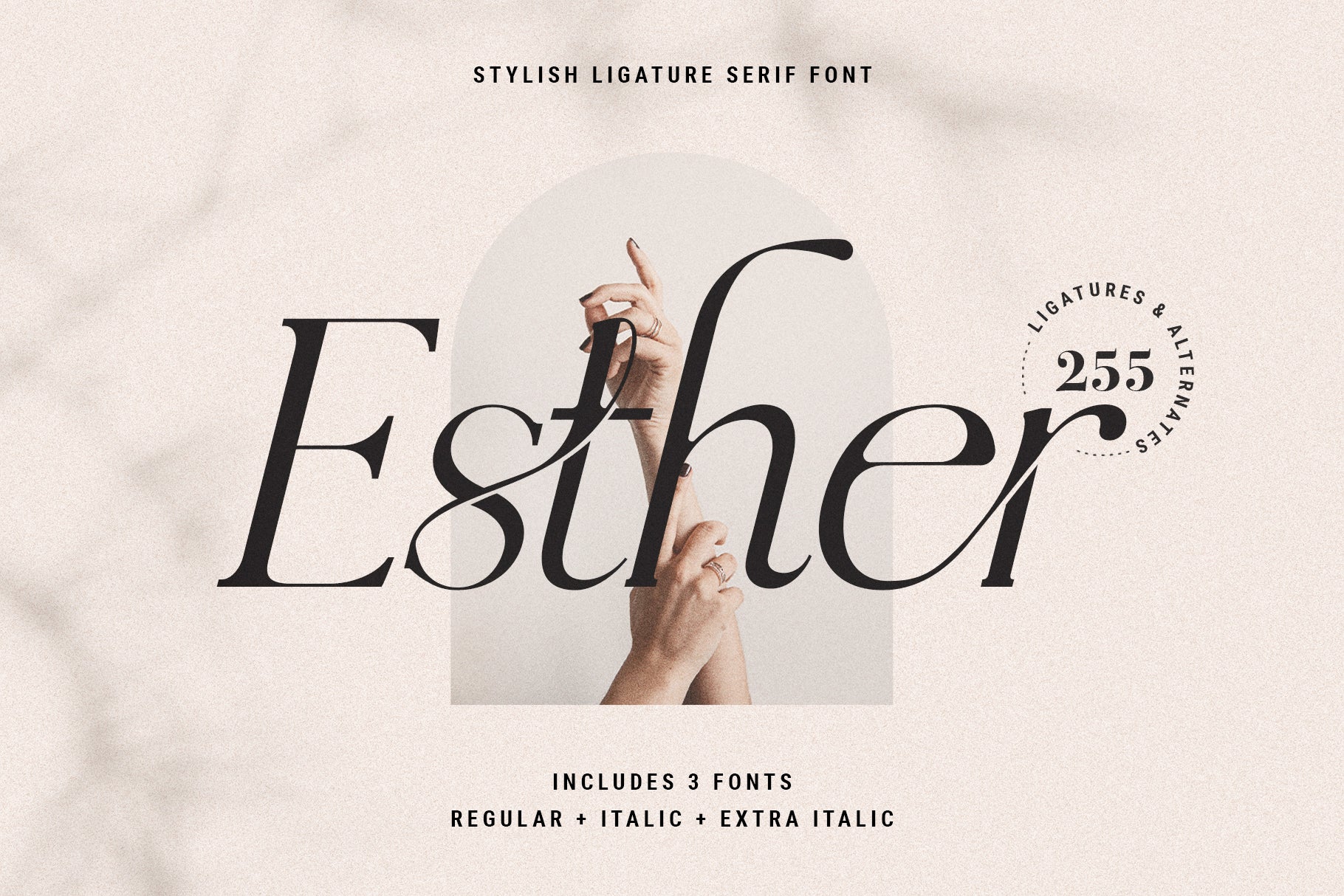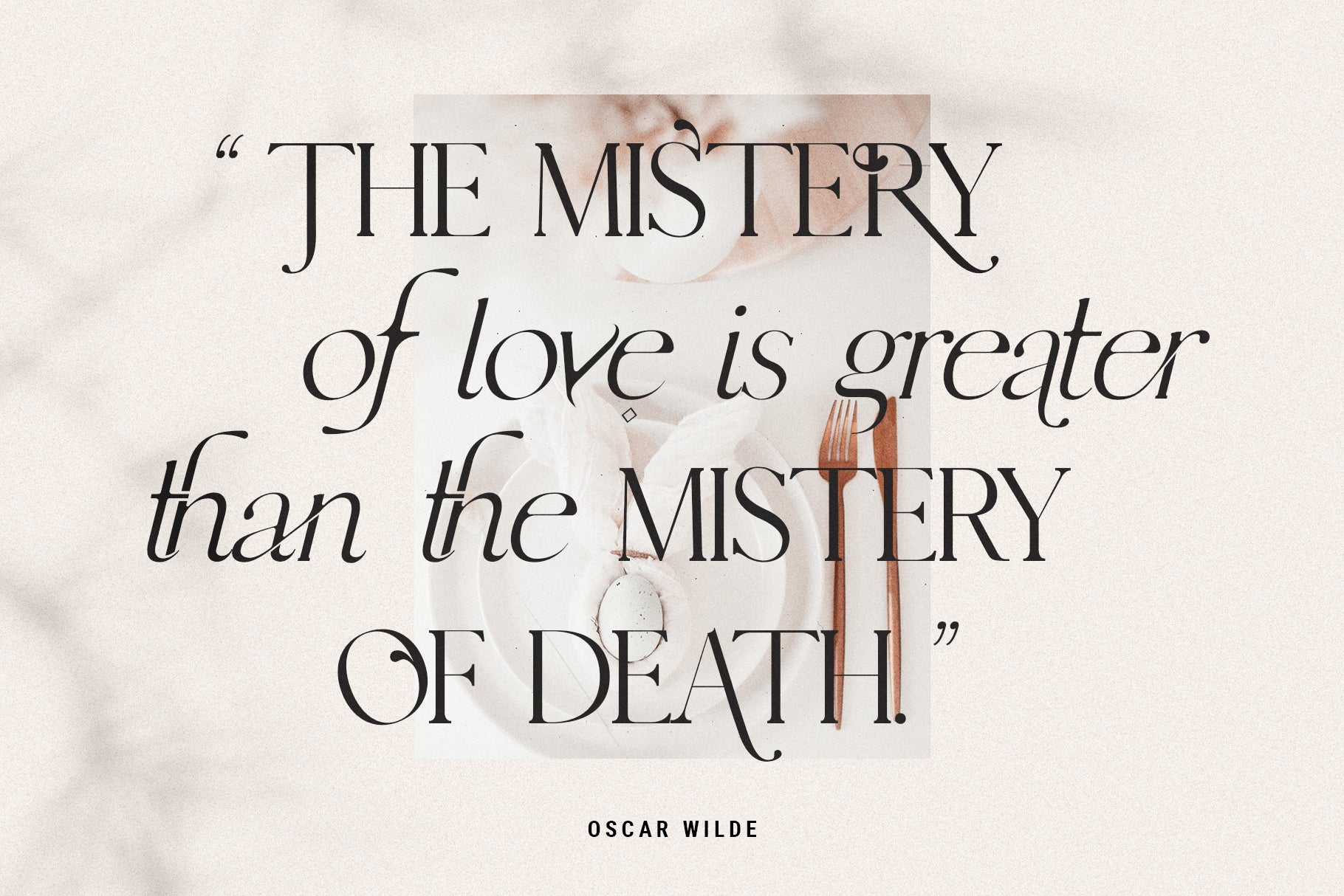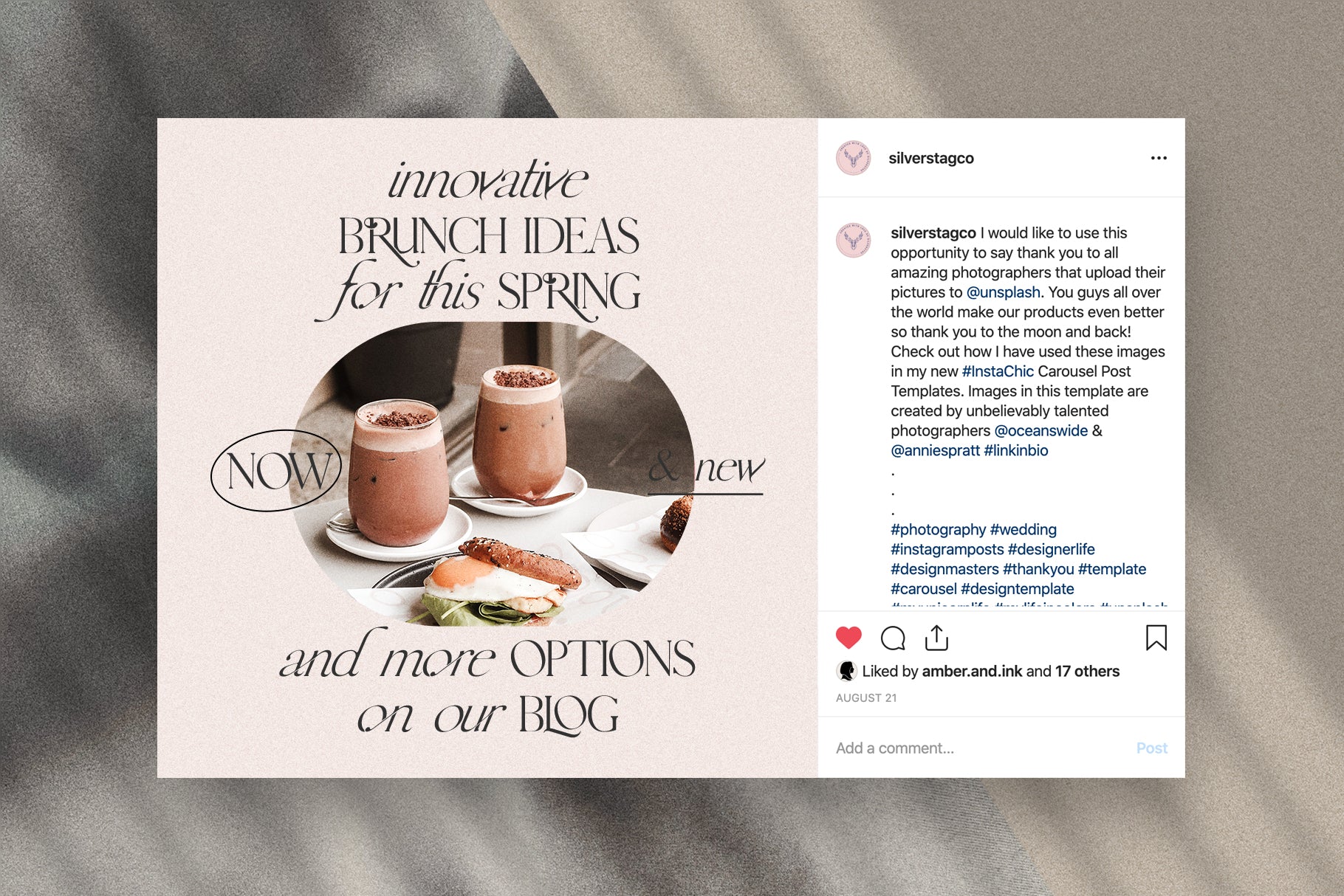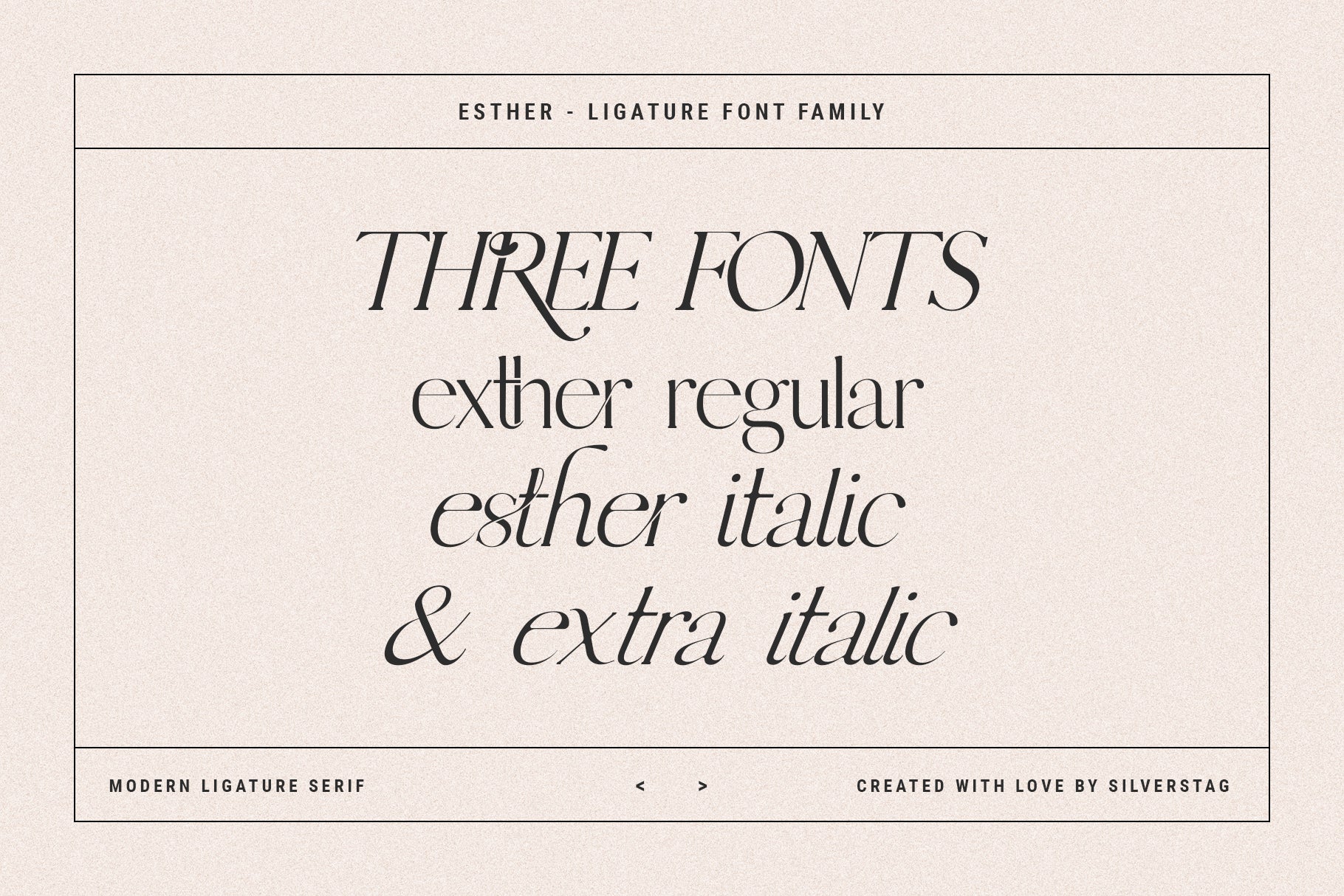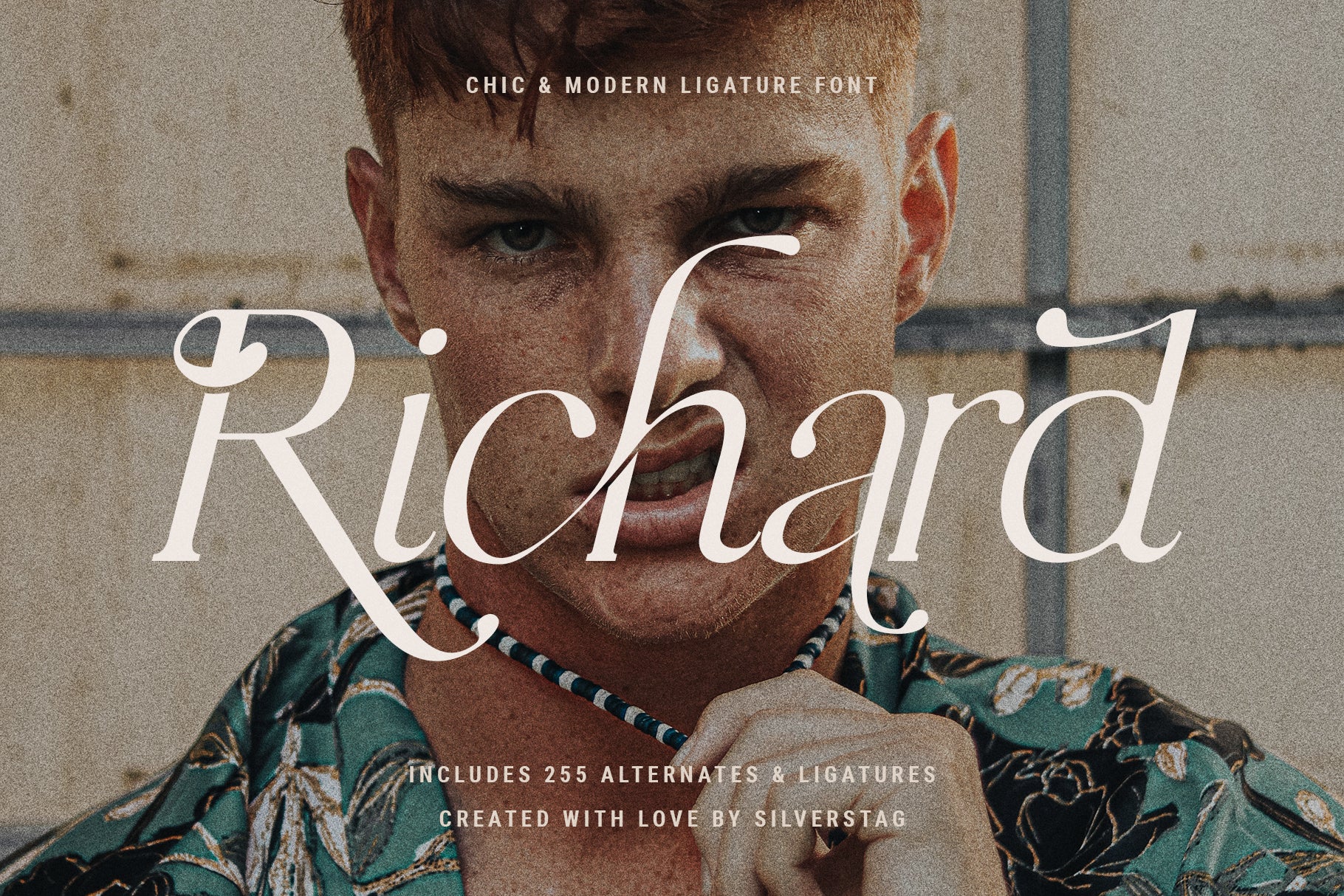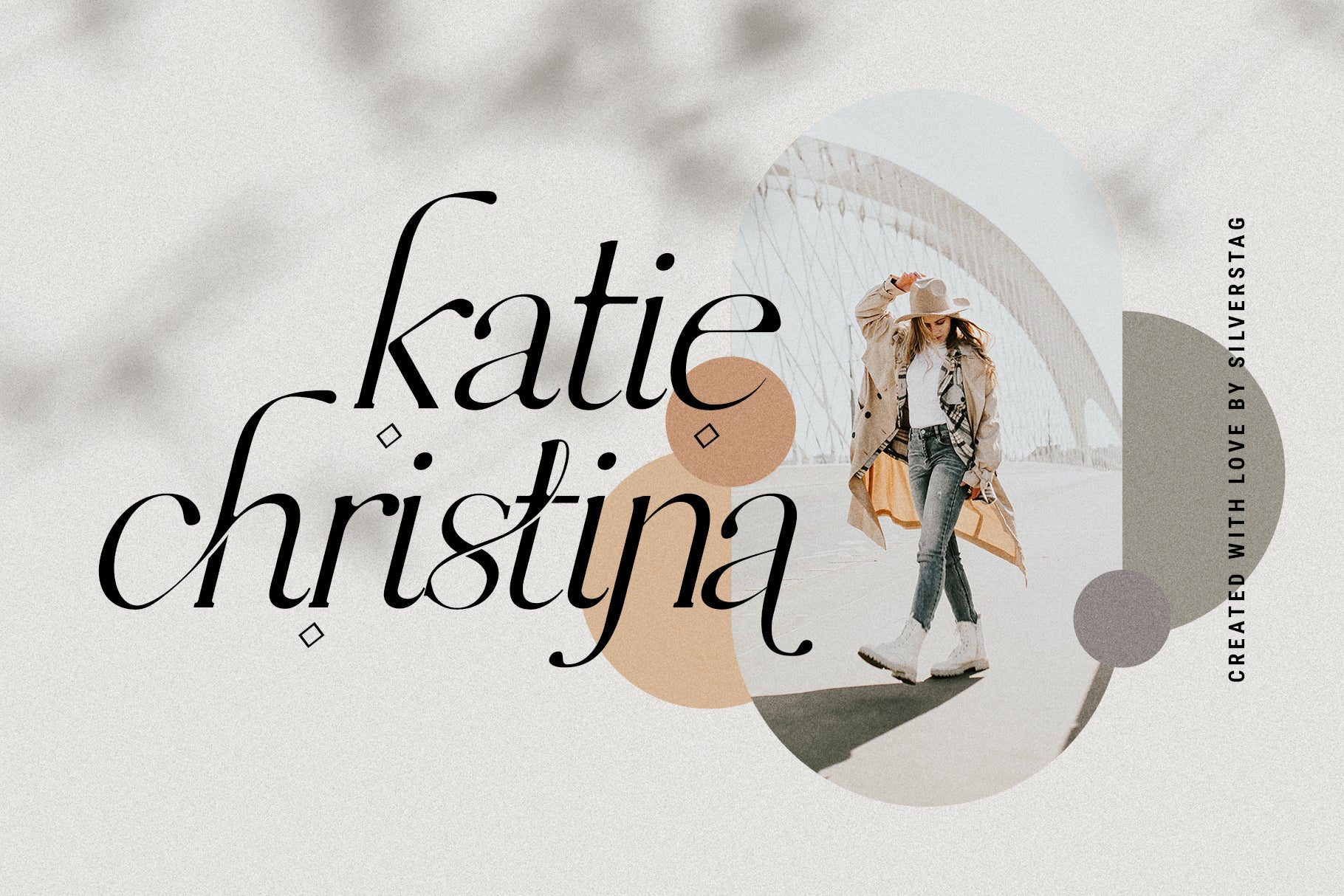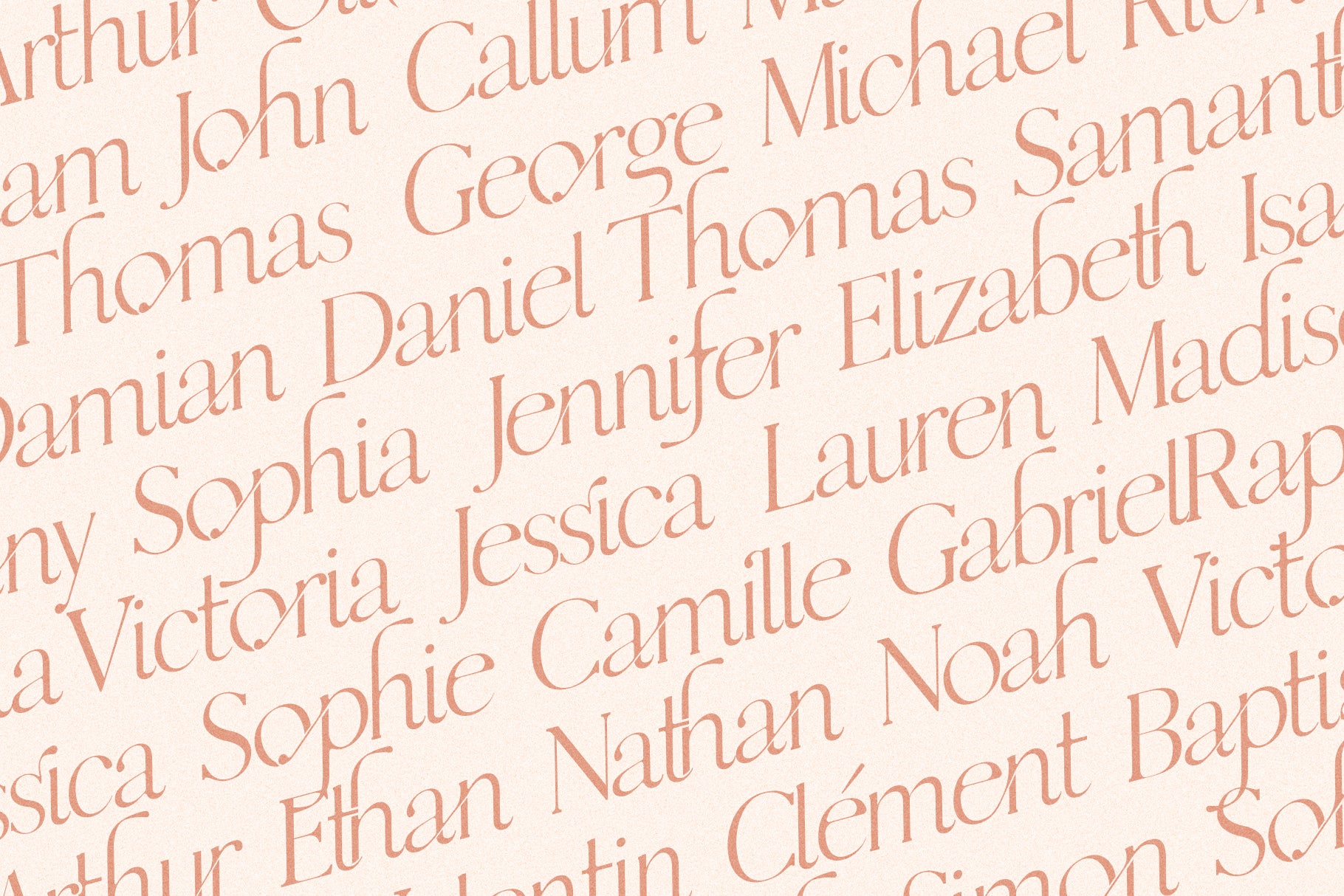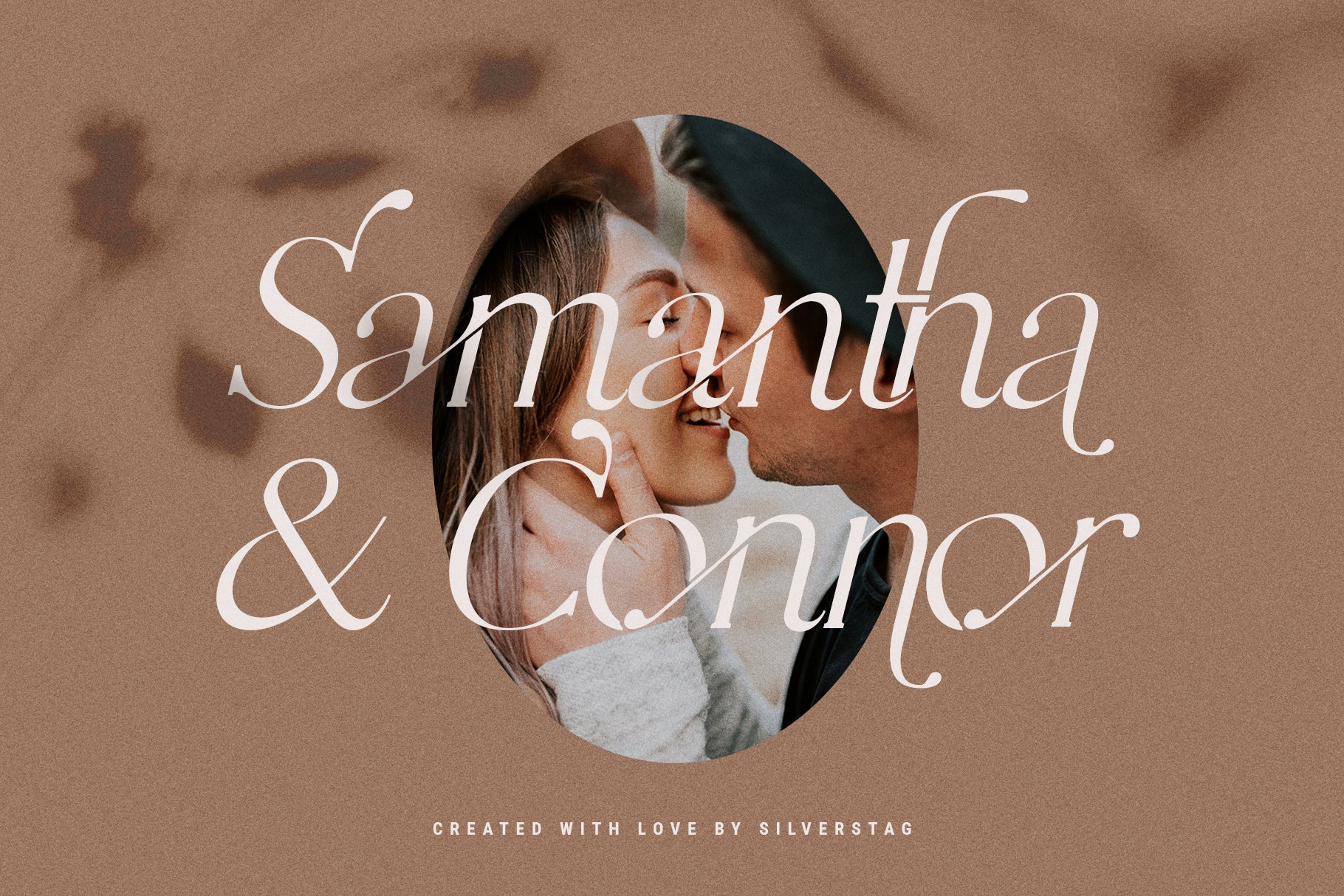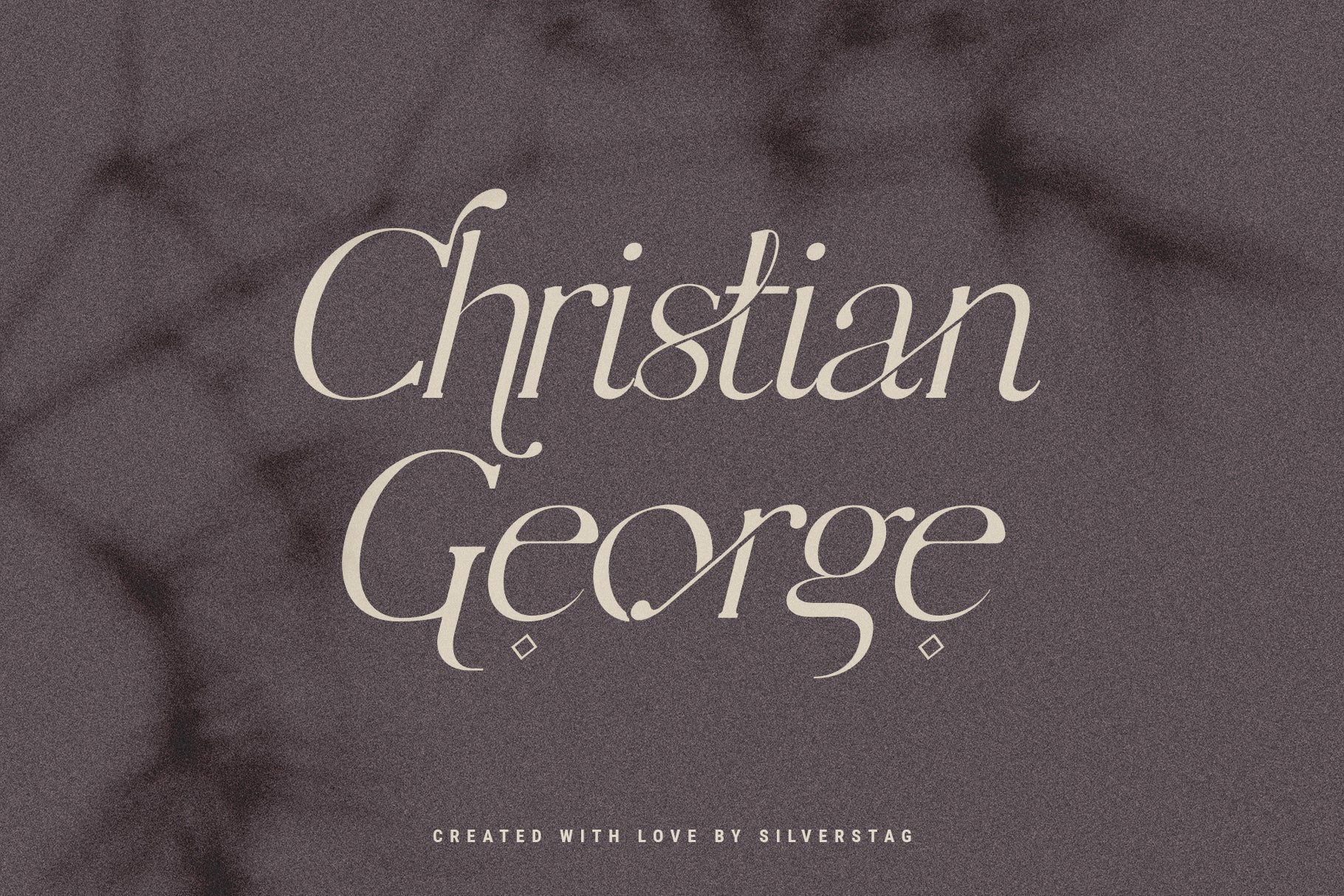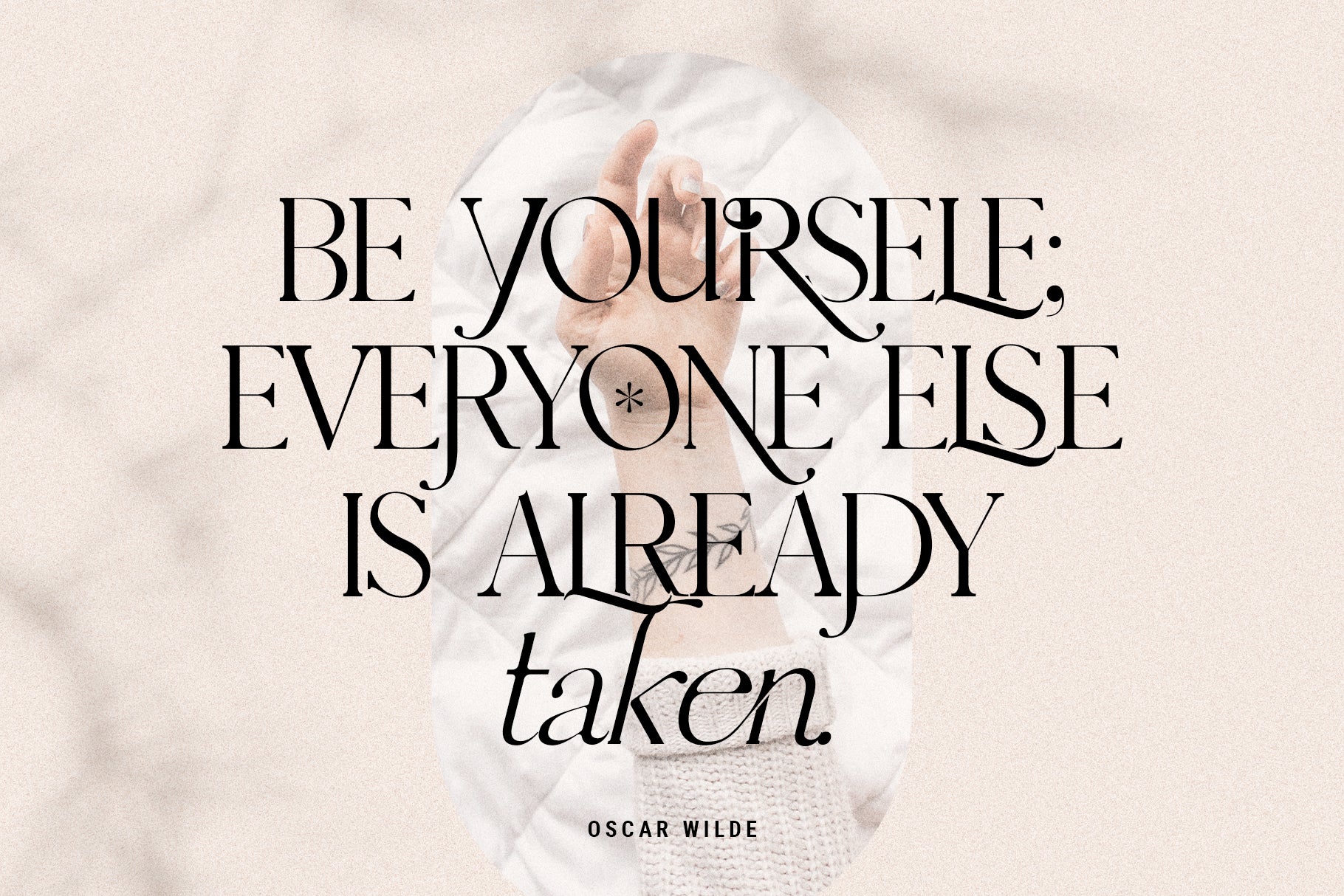
Say hello to Esther, a refined ligature serif font family crafted for elegance, versatility, and expressive detail. After the warm reception of Esther Regular, this expanded family now includes Esther Italic and Esther Extra Italic—offering even more stylistic variety and graceful contrast for your design work.
Each style is packed with over 250 ligatures and alternate characters, including beautifully fluid connections like the standout “st” ligature that mimics calligraphic charm. Whether you’re designing a luxury logo, editorial layout, wedding stationery, or an elegant social media post, Esther gives your typography a distinctive and elevated voice.
From chic branding to romantic headlines, Esther was made to impress—bold, stylish, and handcrafted with precision.